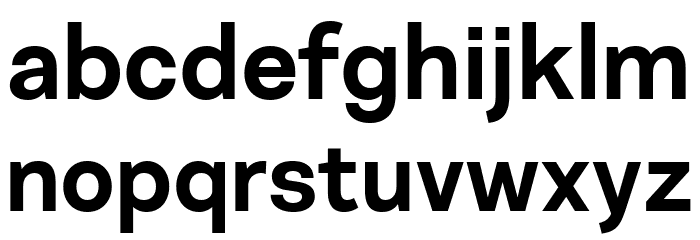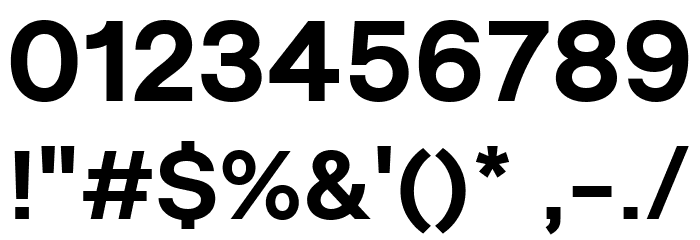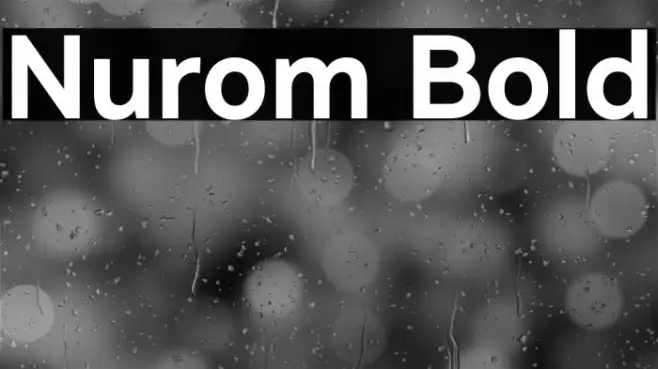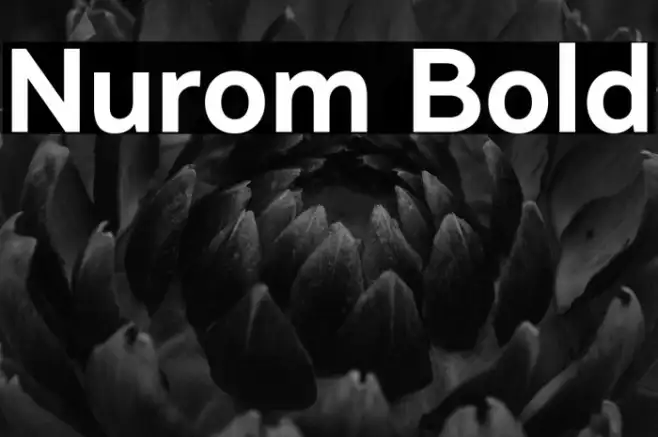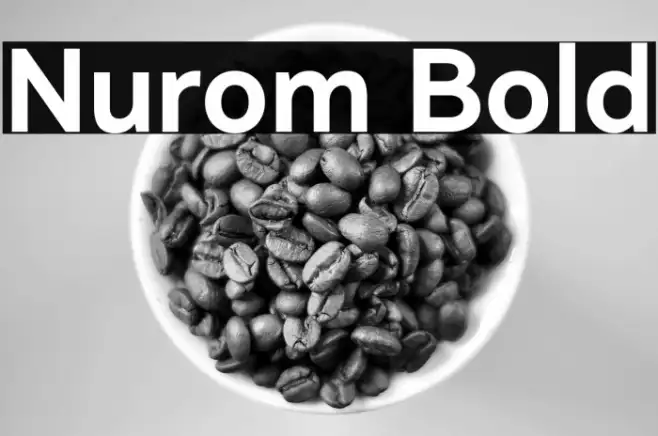
Nurom Bold Font
This font exhibits a bold and modern sans-serif style, characterized by clean lines and a strong presence. The uppercase and lowercase letters maintain a consistent weight, contributing to a uniform appearance. The numerals are clear and easily distinguishable, making them suitable for various applications. Special characters are well-defined, ensuring readability across different contexts. The overall design is straightforward, with a focus on functionality and clarity, making it ideal for contemporary design projects.
- Proposed Projects: Ideal for branding, headlines, posters, and digital media where a bold statement is needed.